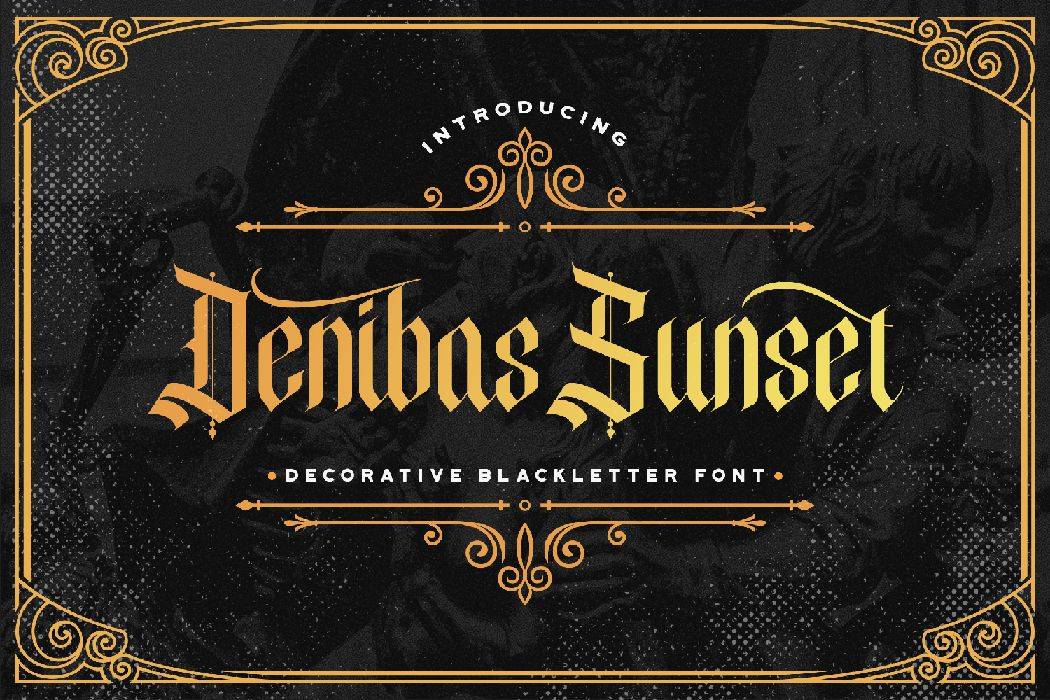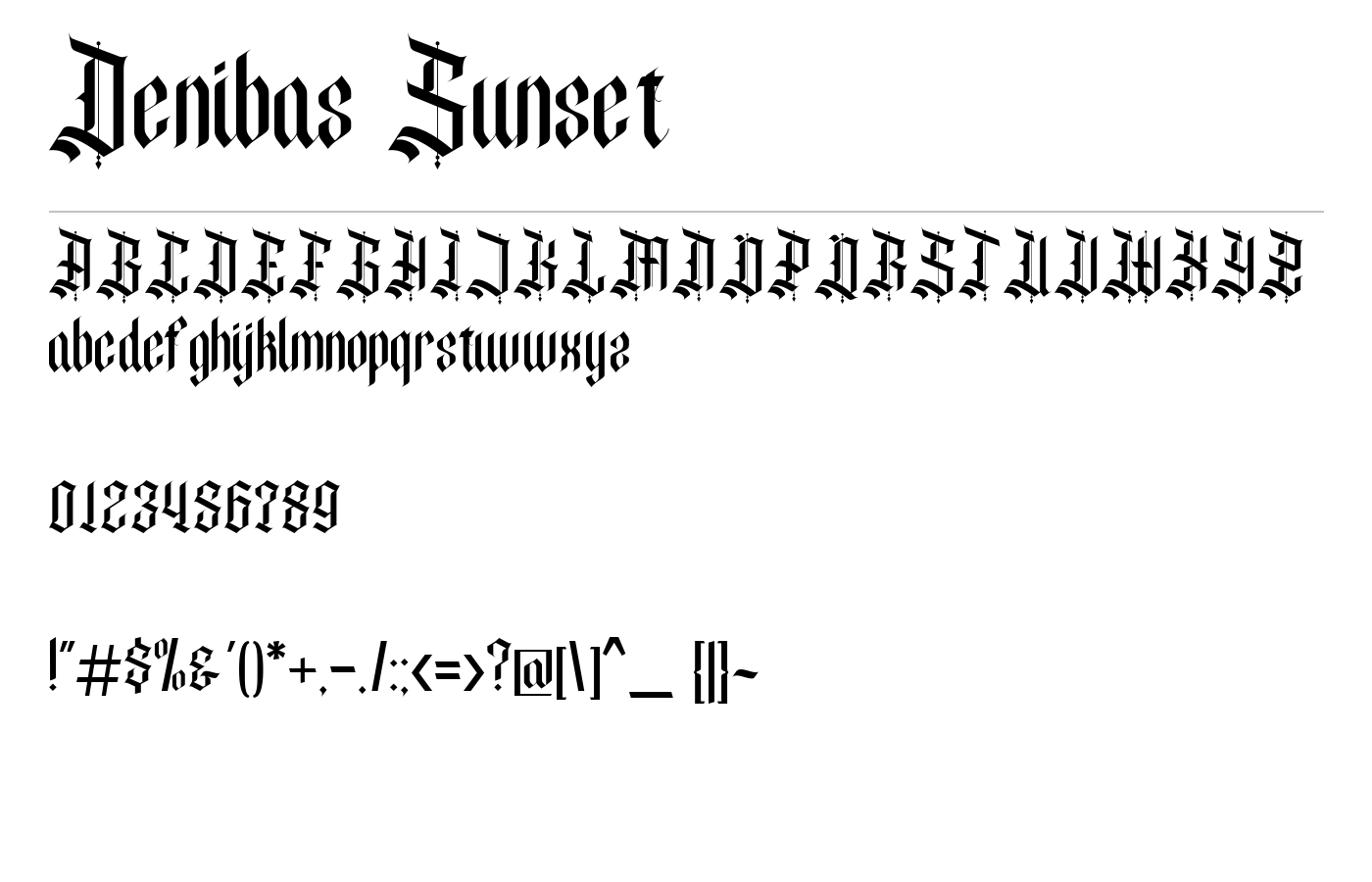
Denibas Sunset is a bold blackletter-style font with sharp, angular strokes and high contrast that evoke a dramatic, vintage Gothic feel. Its condensed letterforms and ornate details make it perfect for eye-catching headlines, logos, or designs seeking an old-world, edgy, or rebellious aesthetic. This font works well in branding and editorial contexts where a strong, distinctive personality is needed.
Denibas Sunset Font
About Denibas Sunset Font